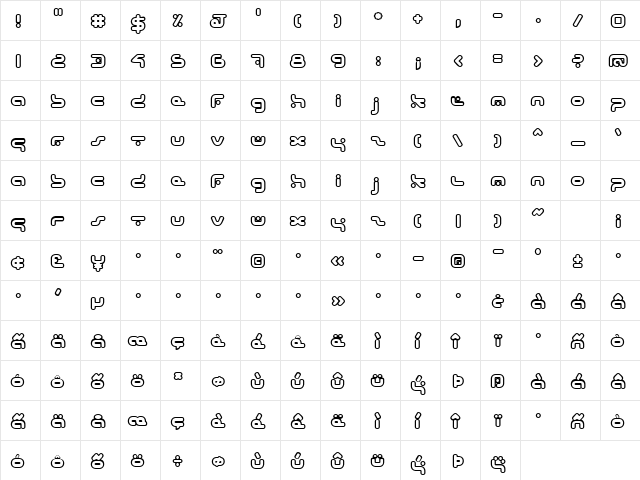
hybrid Outline
Design Context for hybrid Typeface
hybrid is built around its visual character rather than neutral utility — its distinctive forms are designed to make an impression at display sizes.
Font Pairing: Pair with a clean neutral sans-serif for body copy to let hybrid's character lead without overwhelming the composition.
Pro Tip: Use hybrid exclusively at display sizes — it was designed to be seen, not read at length. Let a neutral companion handle body copy.